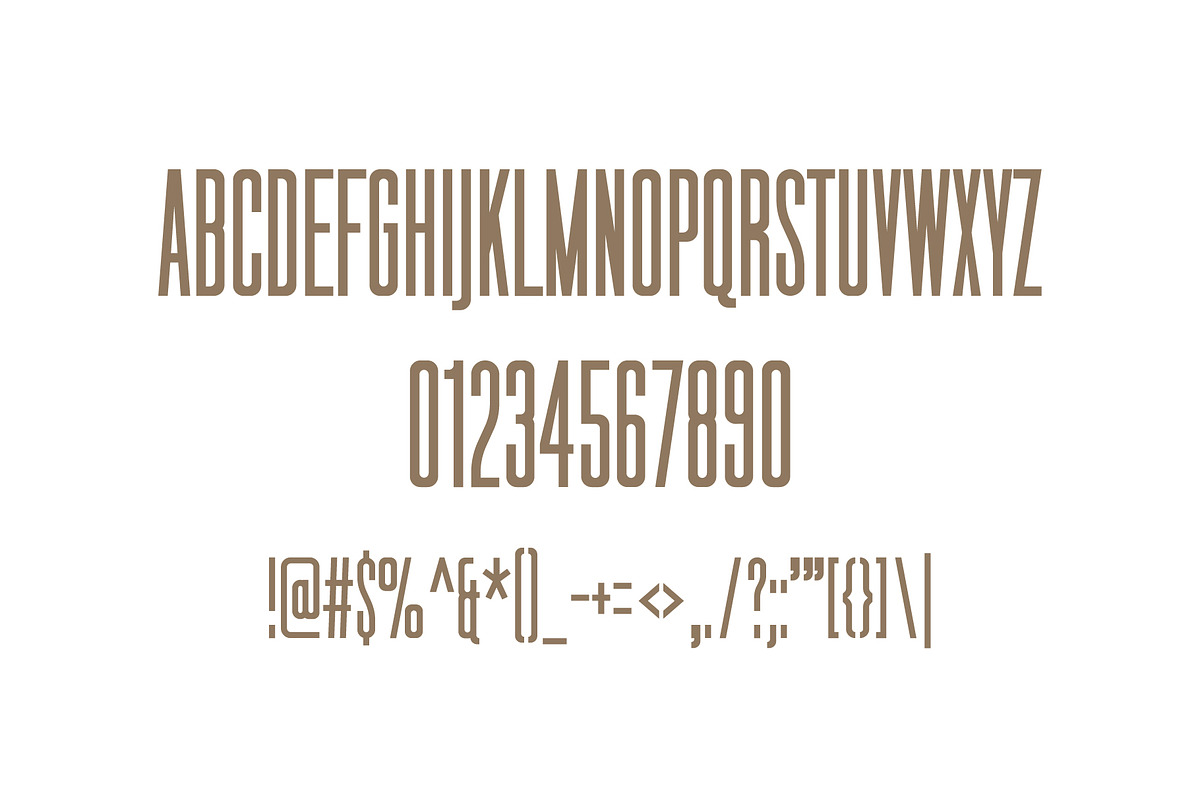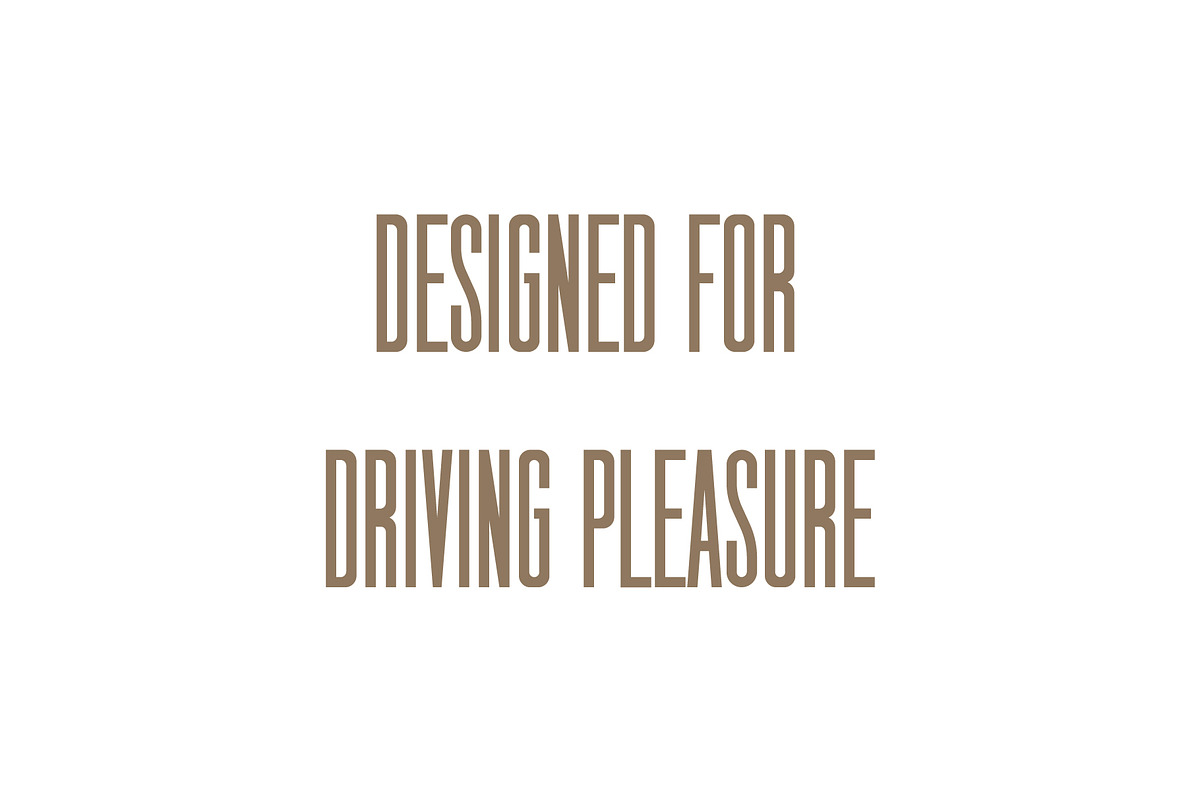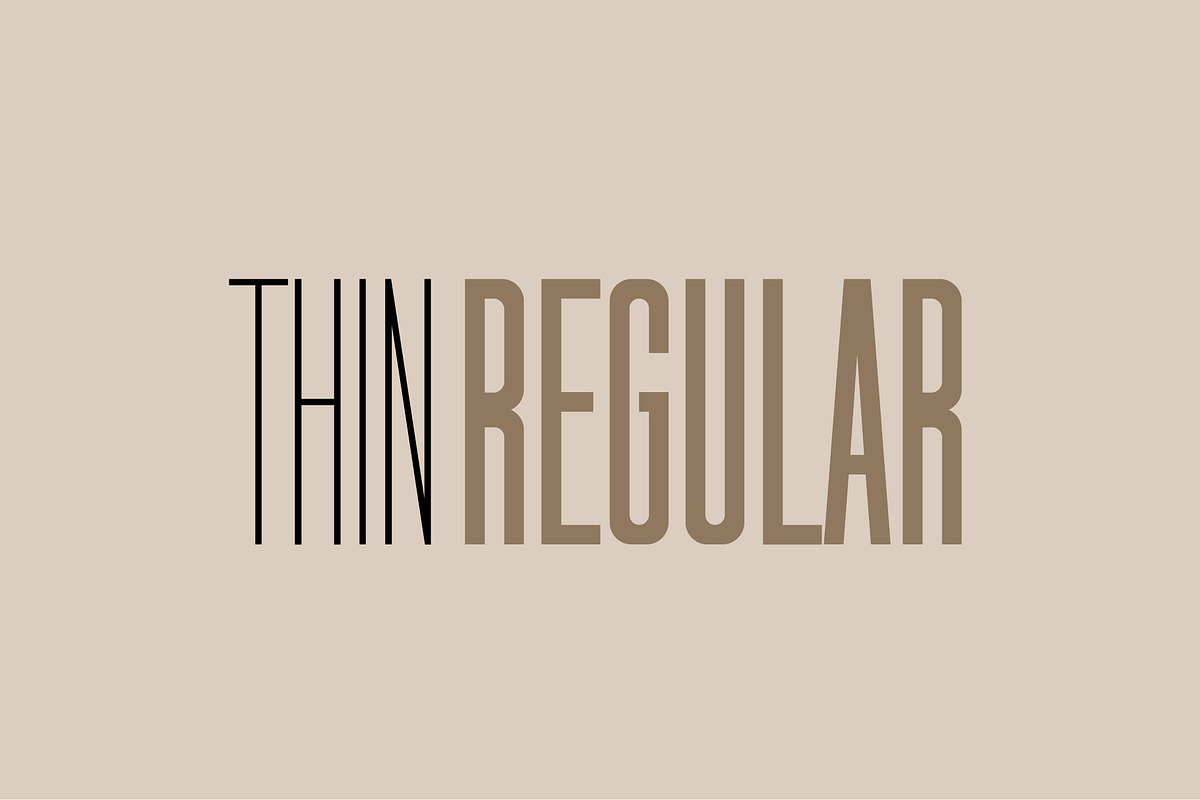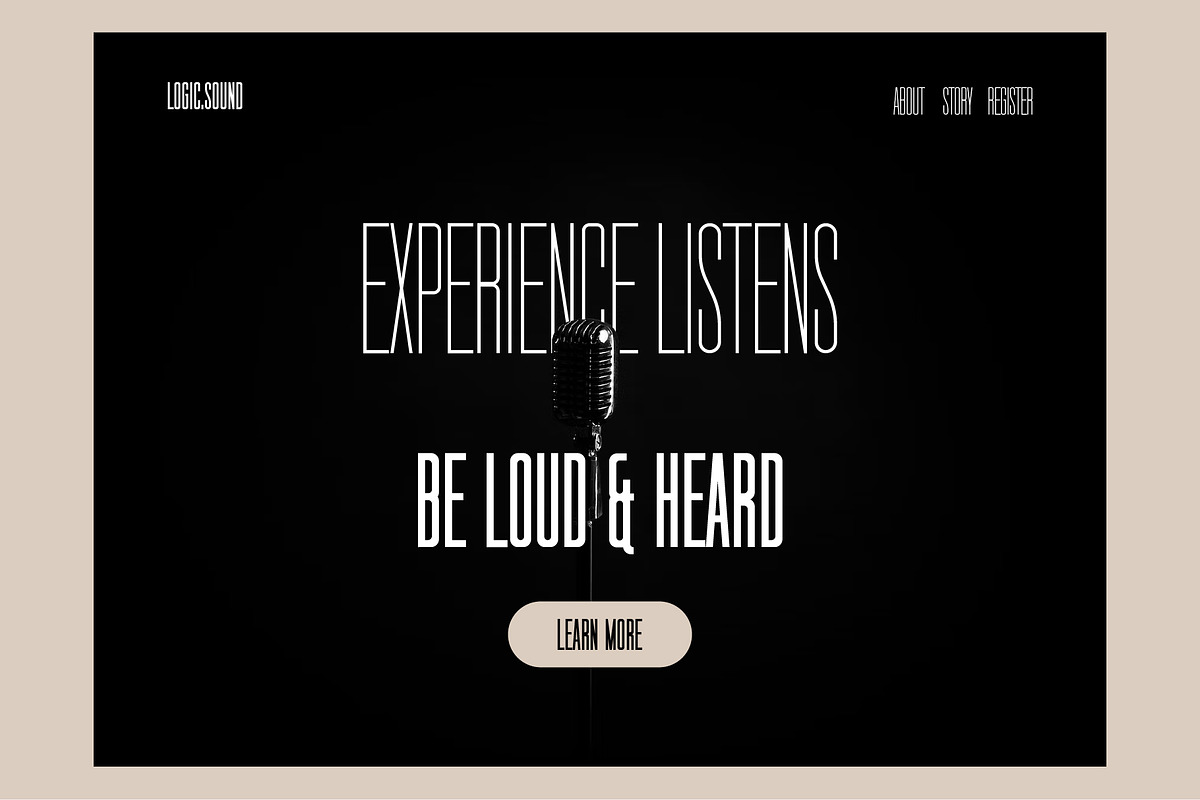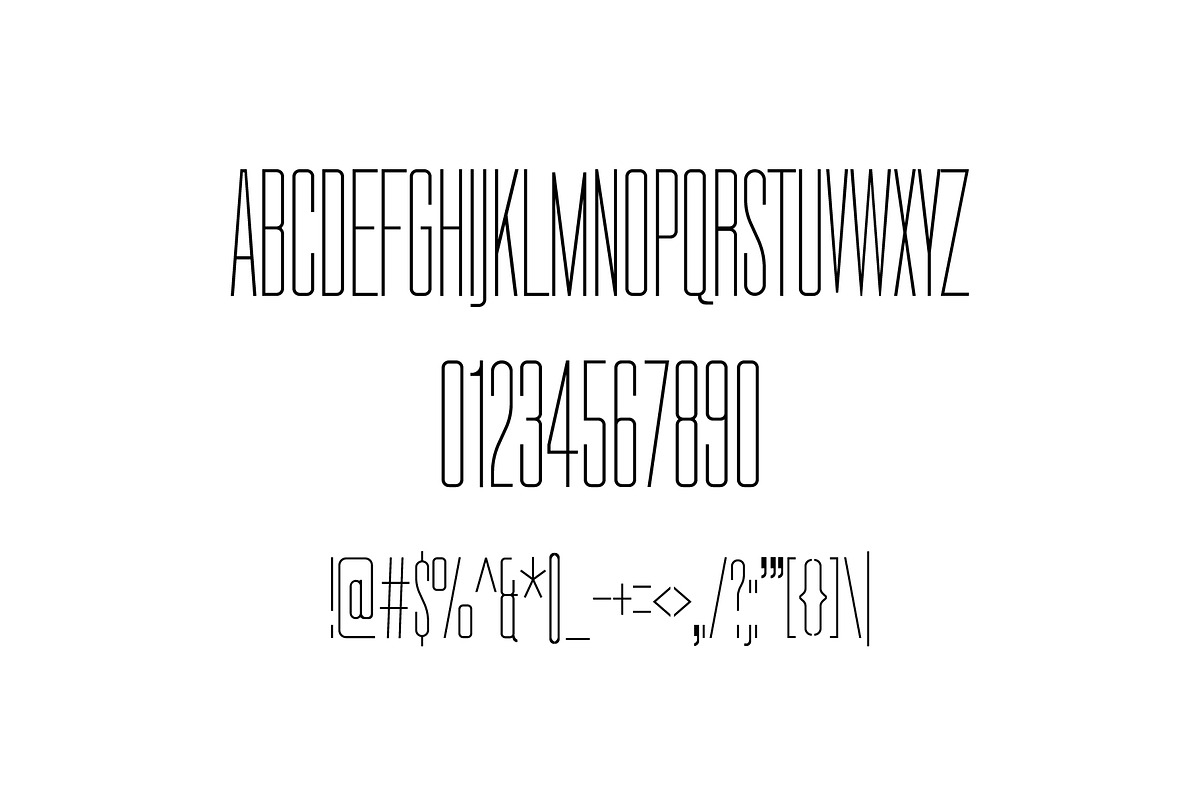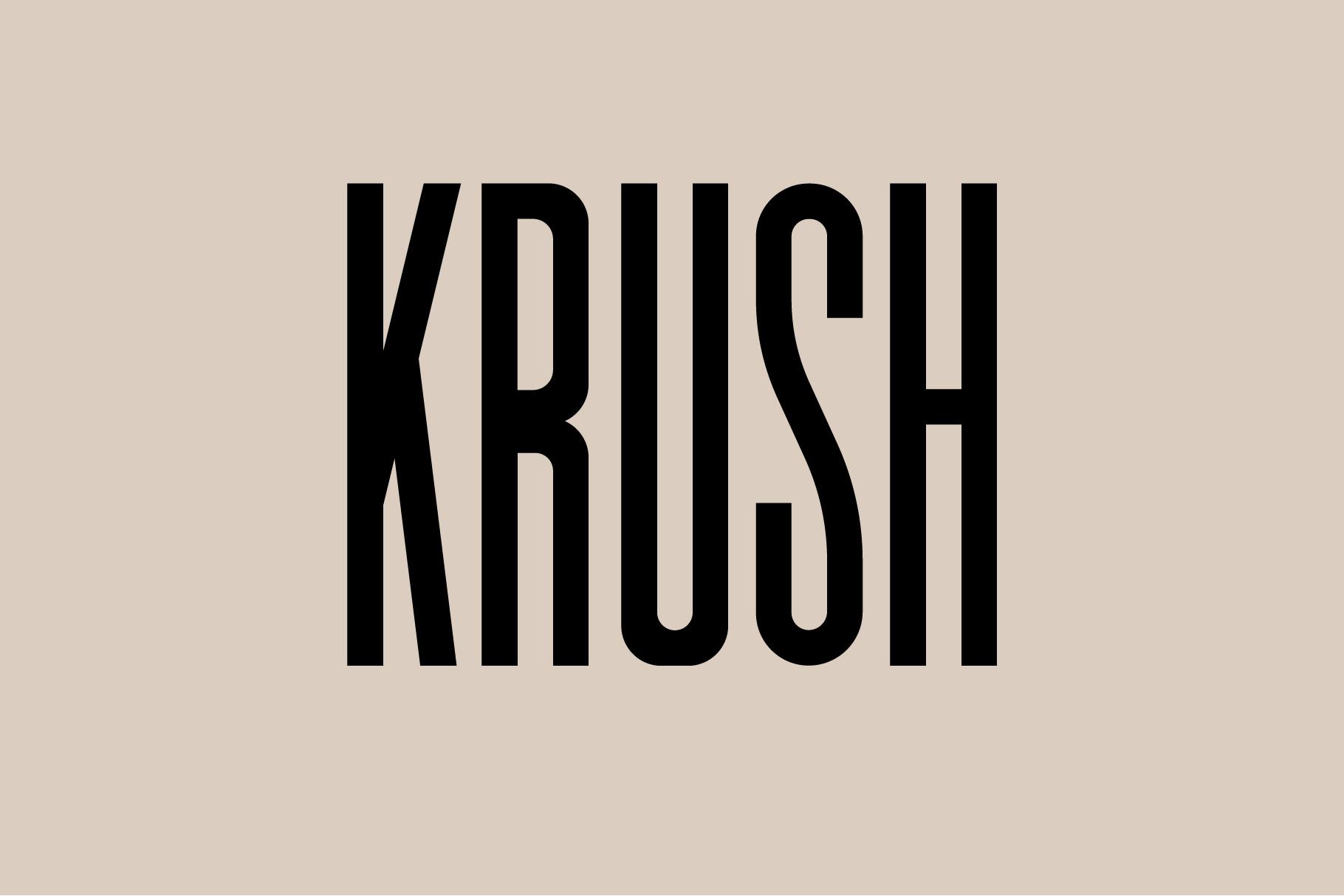
Krush Font
KRUSH is a new font with big and thin feels. The font is suitable for creating word marks, titles, taglines. This font is perfect for those of you who like a strong but elegant headlines.